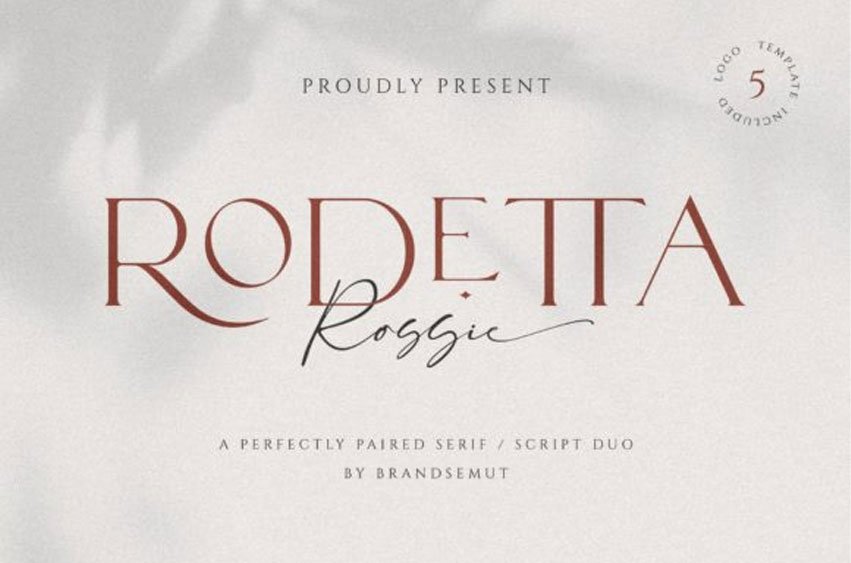
Rodetta Rossie Font duo is a match made in heaven, consisting of script fonts and sans serif fonts which can be paired perfectly.
Combining these two fonts on your next design will give an elegant and unique feel.